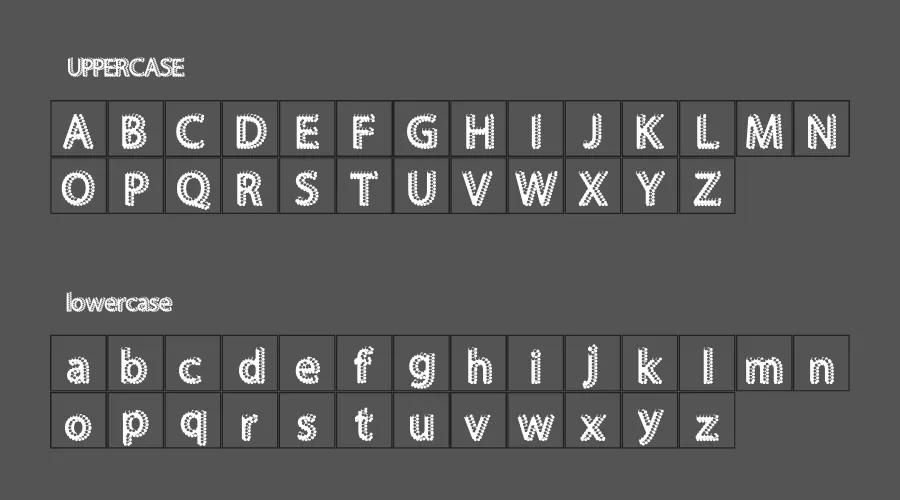
About Super Bling Font
Xerographer Fonts created Super Bling Font it is a decorative text style thats free version is available. There are 498 characters in each style. This typeface can be used in combination with improving the project design. For instance, you may combine this font with the snicker typeface.
This typeface's remarkable characters will give your content a fun and pleasant feel. The font will give your project a bit of passion and joy. This typeface can also be created using the online font generator tool.